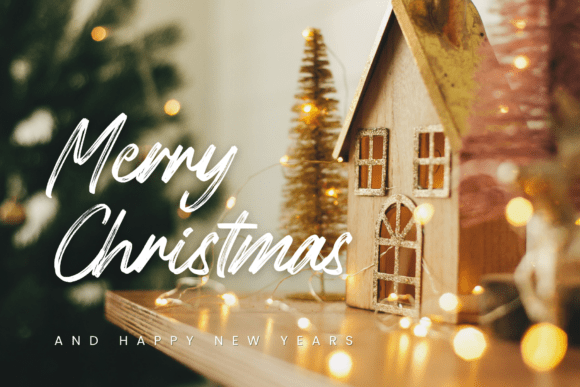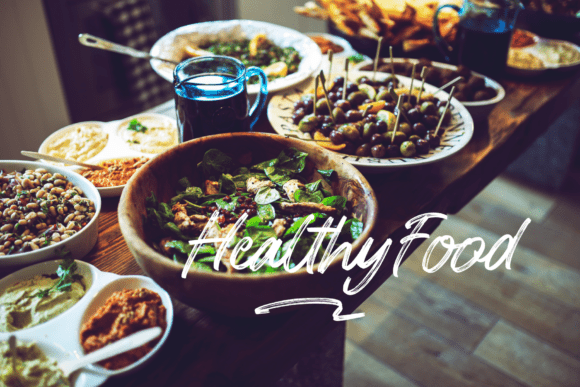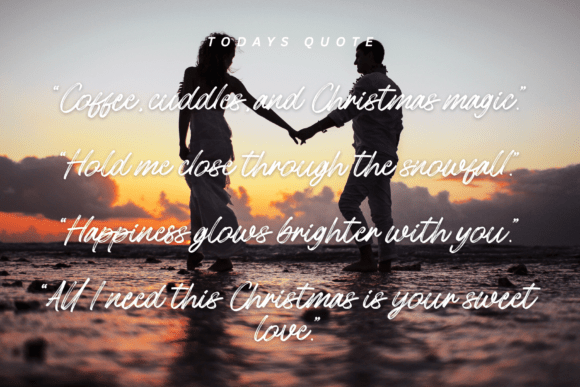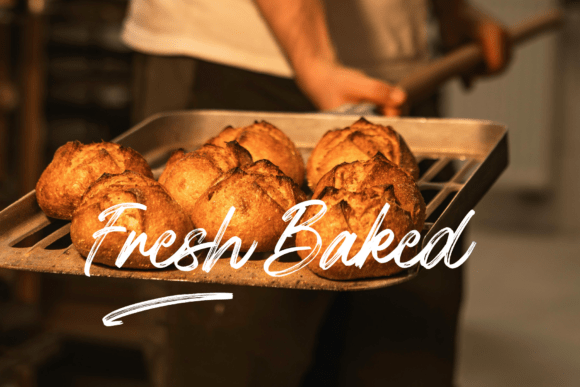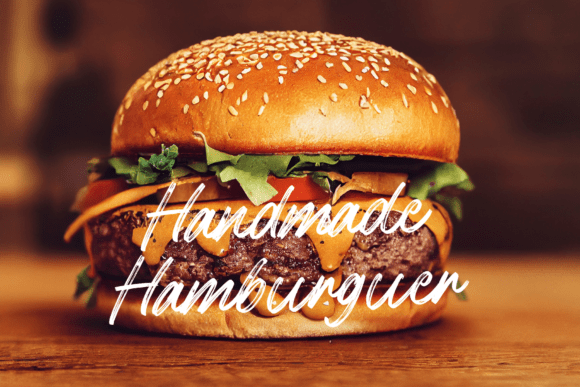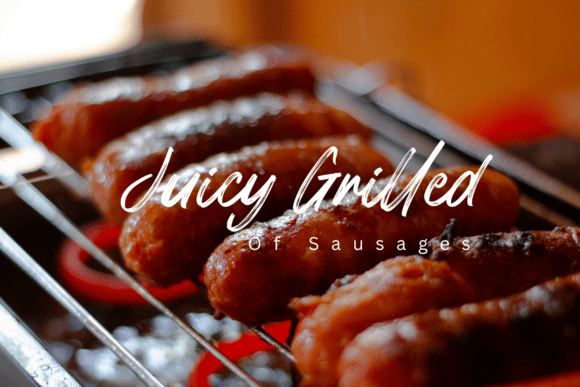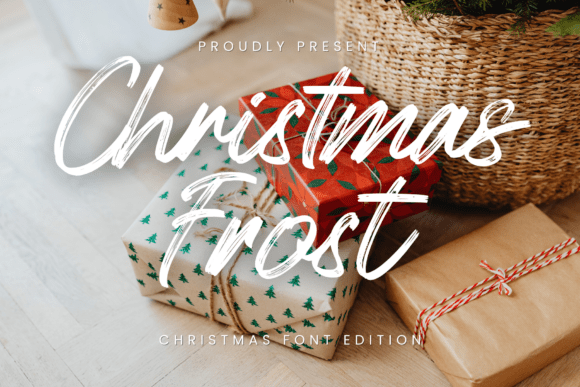
Bring the Magic of Christmas into Your Designs with Christmas Frost Font
As the winter season approaches, designers and crafters are on the lookout for the perfect font to capture the essence of Christmas. Look no further than Christmas Frost, a natural handwritten brush font that embodies the warmth, love, and magic of the holiday season. In this article, we’ll dive into the features and benefits of Christmas Frost, and explore how you can use it to elevate your designs and make them truly special.
The Charm of Christmas Frost
Christmas Frost is a unique and captivating font that is sure to bring a touch of winter wonderland to your designs. With its organic and lively strokes, this font feels like it was written with a real brush dipped in snow and joy. Each letter and symbol is carefully crafted to convey the cozy charm of winter, making it perfect for a wide range of design applications.
Key Features of Christmas Frost
- Natural Handwritten Brush Font: Christmas Frost is a genuine handwritten brush font that captures the imperfections and uniqueness of traditional brush writing.
- Organic and Lively Strokes: The font features organic and lively strokes that give it a natural, hand-crafted feel.
- Perfect for Christmas Designs: Christmas Frost is specifically designed for Christmas designs, making it ideal for holiday cards, branding, and logo design.
- Versatile and Flexible: The font can be used for a wide range of design applications, including social media posts, gift tags, packaging, and more.
Using Christmas Frost in Your Designs
Christmas Frost is an incredibly versatile font that can be used in a variety of design applications. Here are some ideas to get you started:
- Christmas Cards and Invitations: Use Christmas Frost to create beautiful and personalized Christmas cards and invitations that will make your loved ones feel special.
- Branding and Logo Design: Add a touch of festive charm to your branding and logo design with Christmas Frost, perfect for seasonal promotions and holiday marketing campaigns.
- Holiday Quotes and Lettering Art: Create stunning holiday quotes and lettering art with Christmas Frost, perfect for social media posts, blog features, and more.
- Gift Tags and Packaging: Add a personal touch to your gift tags and packaging with Christmas Frost, making your gifts truly special and unique.
Tips and Tricks for Working with Christmas Frost
To get the most out of Christmas Frost, here are some tips and tricks to keep in mind:
- Experiment with Colors and Textures: Try pairing Christmas Frost with different colors and textures to create unique and eye-catching designs.
- Play with Font Sizes and Styles: Experiment with different font sizes and styles to add visual interest and hierarchy to your designs.
- Add Decorative Elements: Consider adding decorative elements, such as snowflakes or holly, to enhance the festive feel of your designs.
Christmas Frost is a truly special font that captures the magic and wonder of the holiday season. With its natural handwritten brush strokes and organic feel, it’s perfect for designers and crafters looking to add a touch of winter charm to their designs. Whether you’re creating Christmas cards, branding, or social media posts, Christmas Frost is sure to bring a smile to your audience’s faces. So why wait? Download Christmas Frost today and start creating your own festive designs!